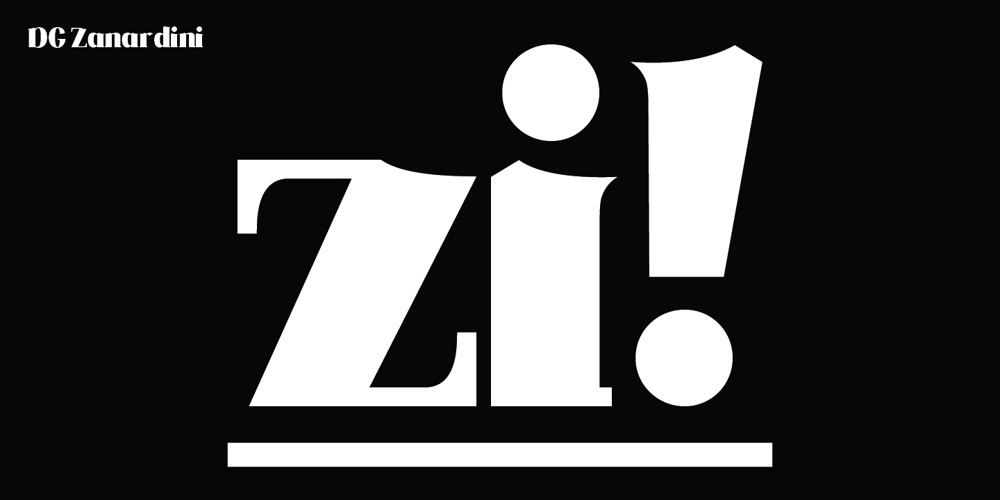
DG Zanardini Font Family was designed by Davide Melotti and published by DubbioGusto. DG Zanardini contains 1 styles and family package options. Zanardini it’s a bold serif display font with a high contrast between the stem width and between sharp and curvy terminals and slab / egyptian serifs. All the glyphs was freehand drawn so the curves are strong and they create more interesting shapes in the negative space between the letters. Use it irresponsibly!